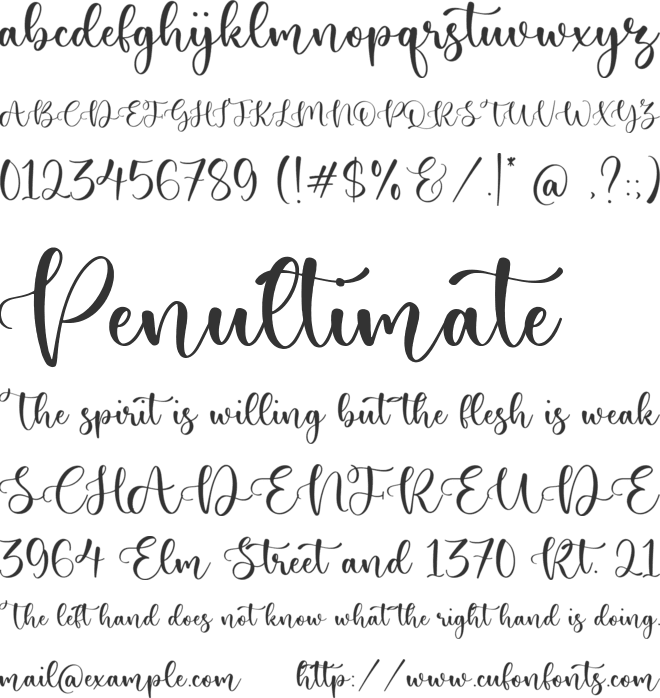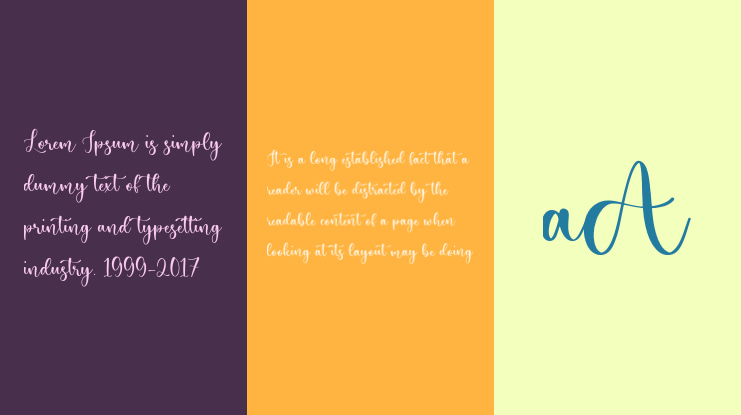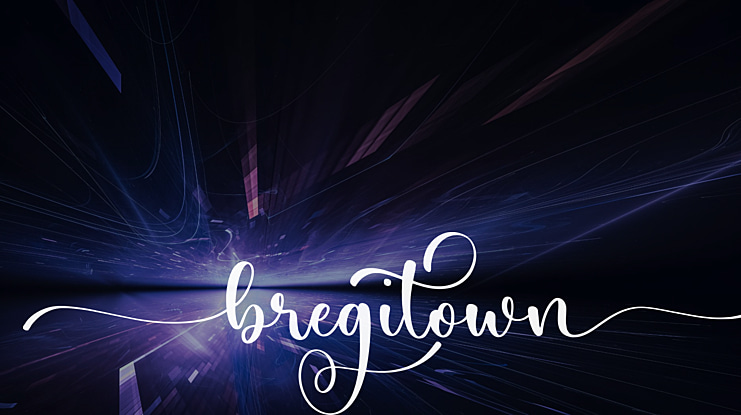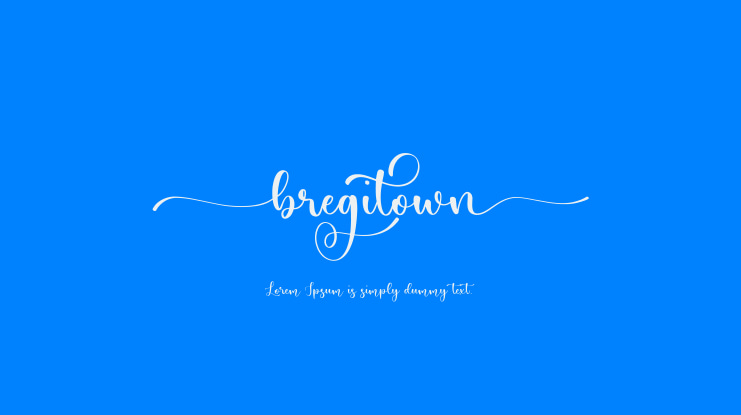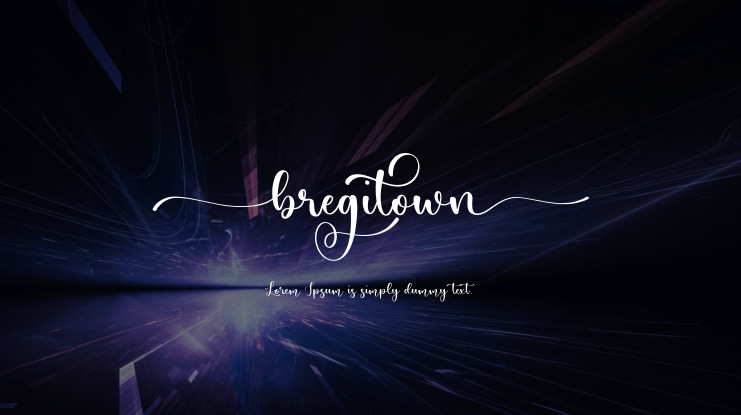
bregitown Font
Proudly Present Bregitwon
Bregitwon is a Handwritten script font that is modern and fresh, and will bring a warm and inviting feel to your business. Take advantage of the fonts and experience the magic for yourself.
Bregitwon is perfect for product packaging, branding project, megeenazine, social media, wedding, or just used to express words above the background.
BregitwonFont Features premium :
-Full Set of standard alphabet and punctuation
– Ligature
– stylistic Alternate set
Bregitwon also multilingual support.